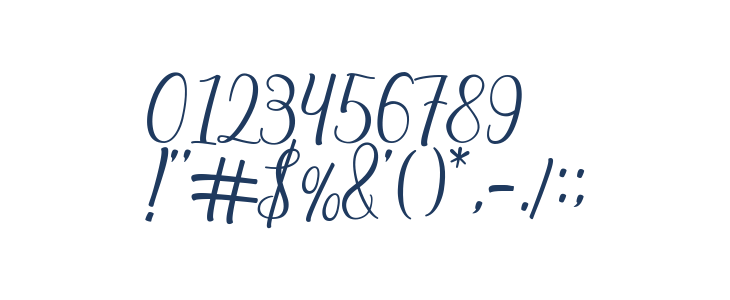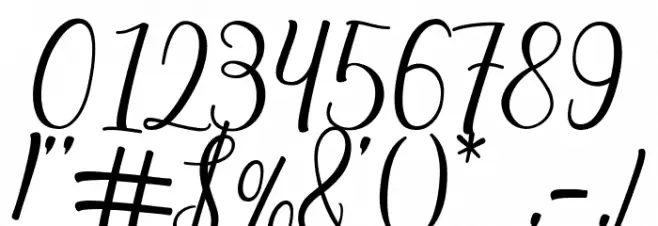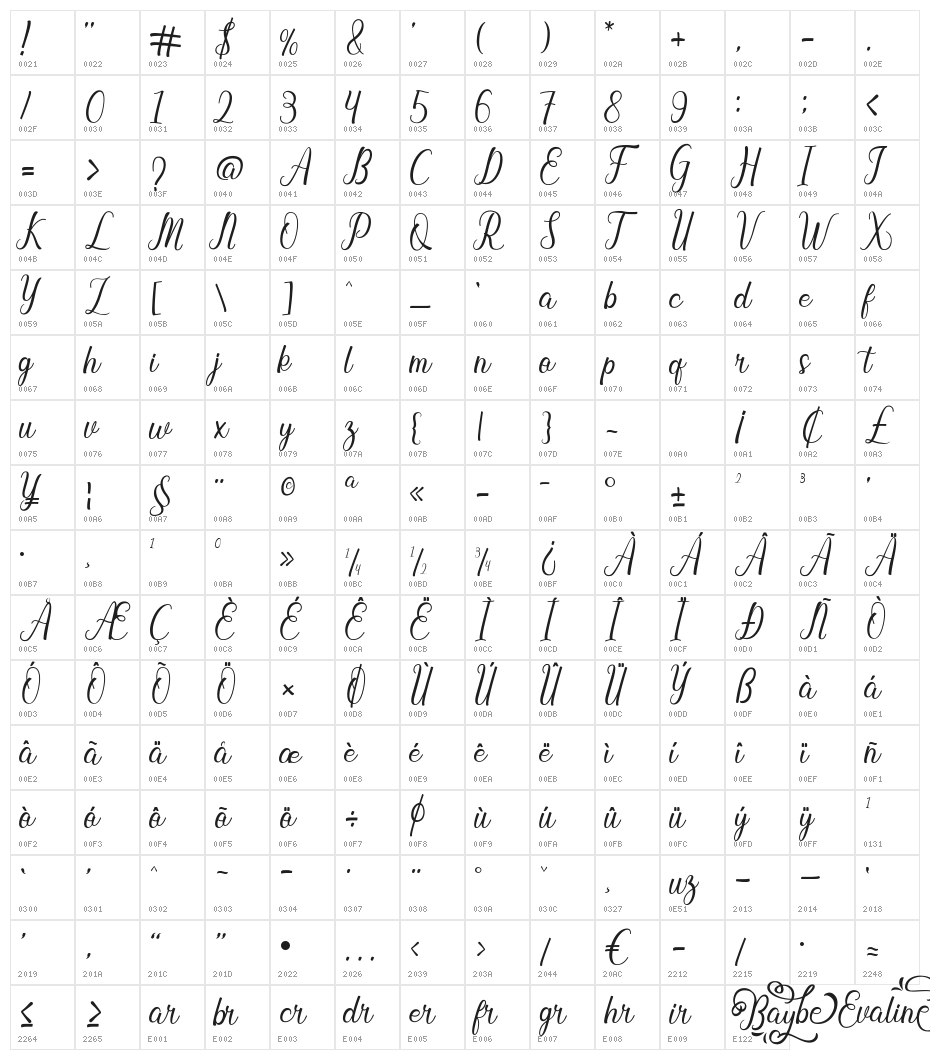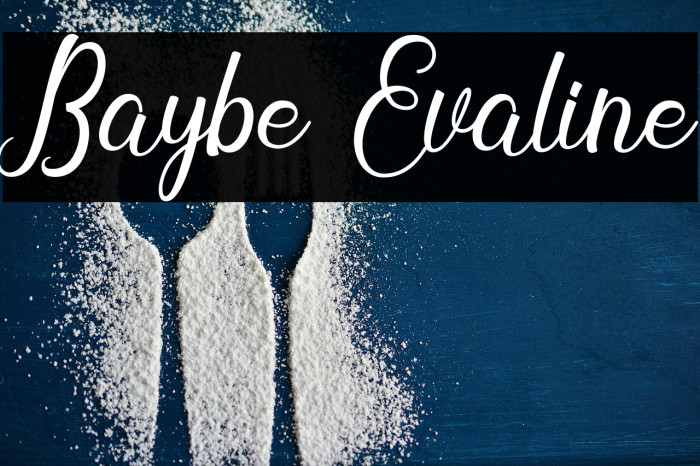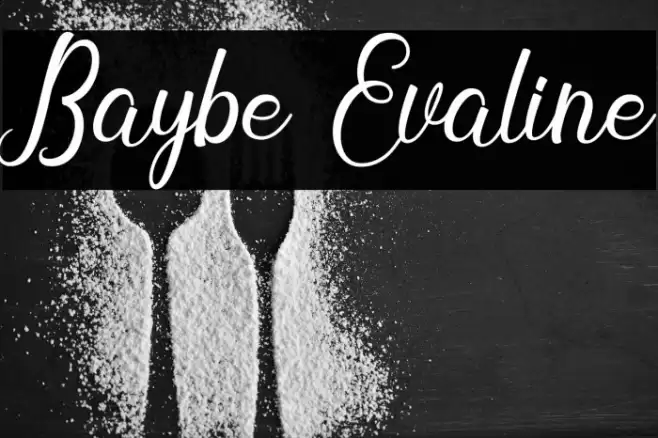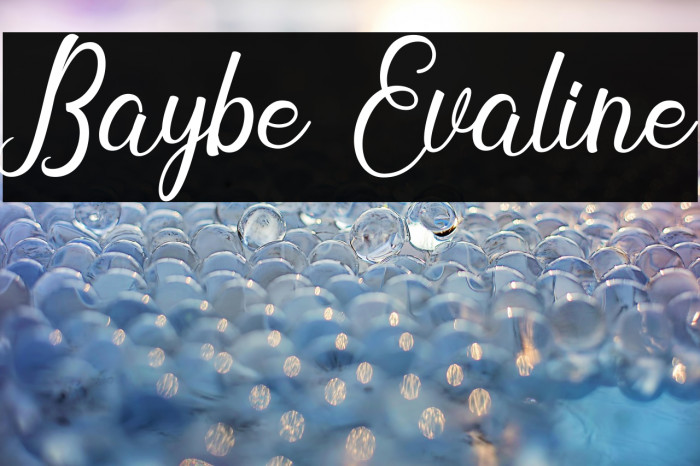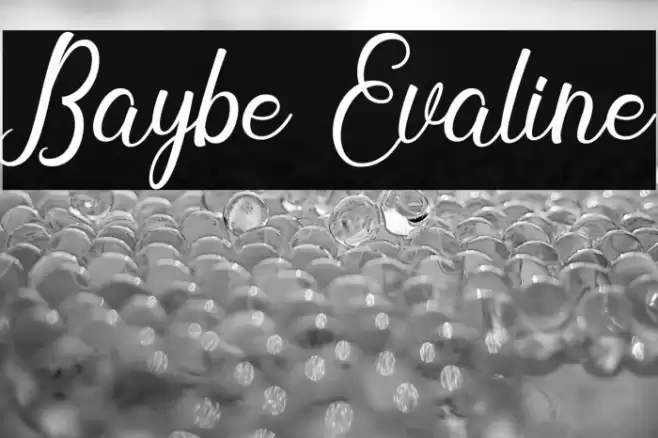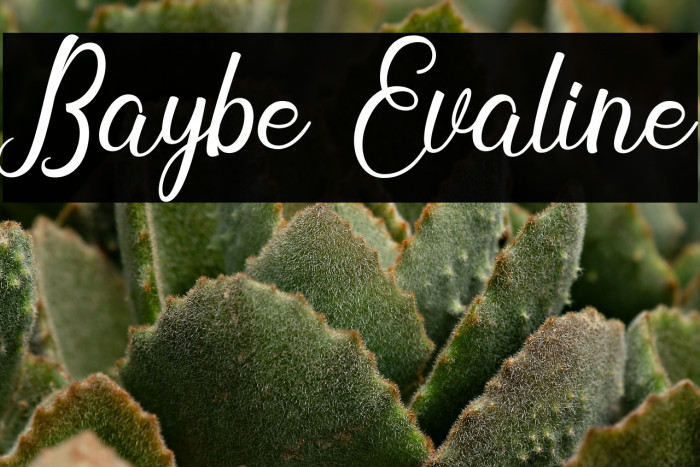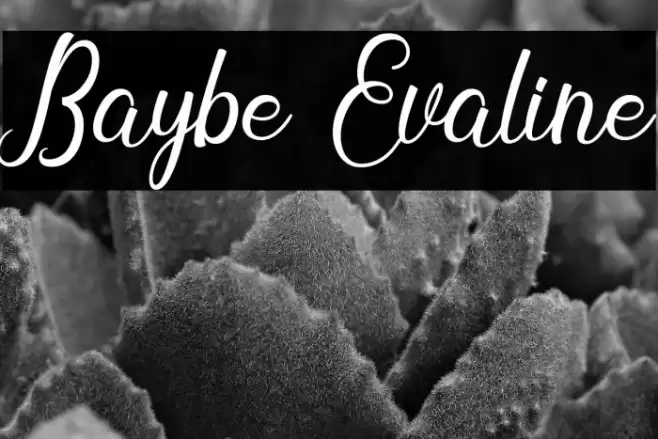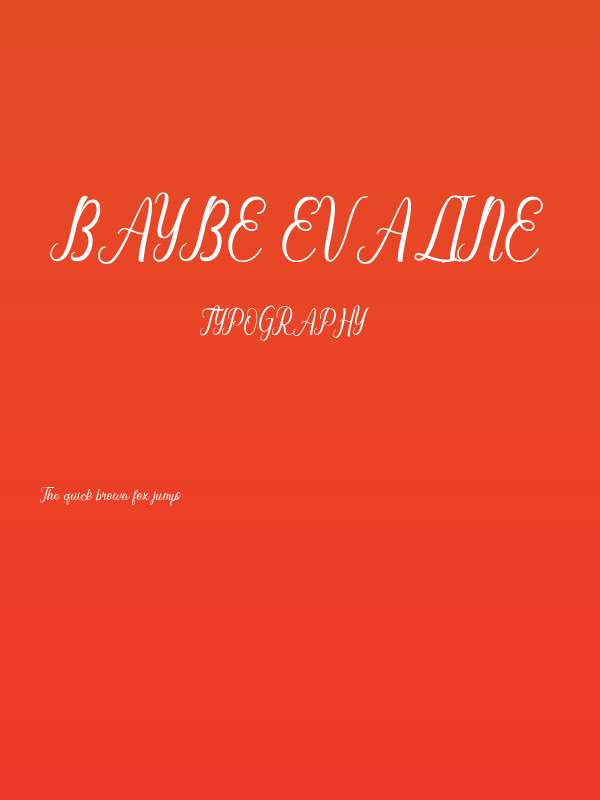
Baybe Evaline Font
Baybe Evaline Description
This font features an elegant, flowing script style that exudes a sense of sophistication and grace. The letters are interconnected, creating a seamless and fluid appearance. The uppercase characters are tall and slender, with gentle curves and loops that add a touch of whimsy. The lowercase letters maintain a consistent style, with smooth transitions and rounded forms. Numbers are designed with the same fluidity, ensuring a cohesive look across all characters. Special characters are thoughtfully integrated, maintaining the overall aesthetic. This font is perfect for projects that require a touch of elegance and charm.
| Use Case | Logos, Invitations, Decorative Text |
| Proposed Projects | Ideal for wedding invitations, elegant branding, personal stationery, and decorative signage. |